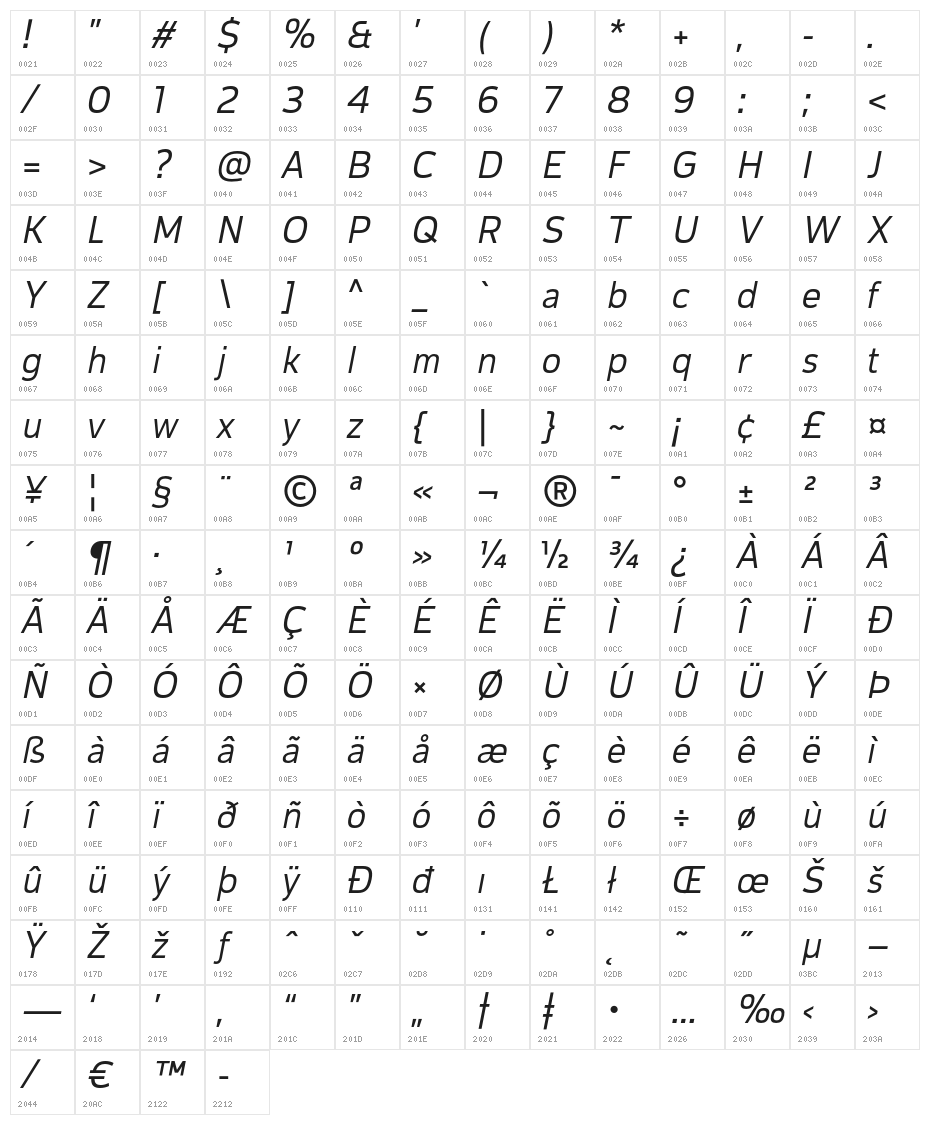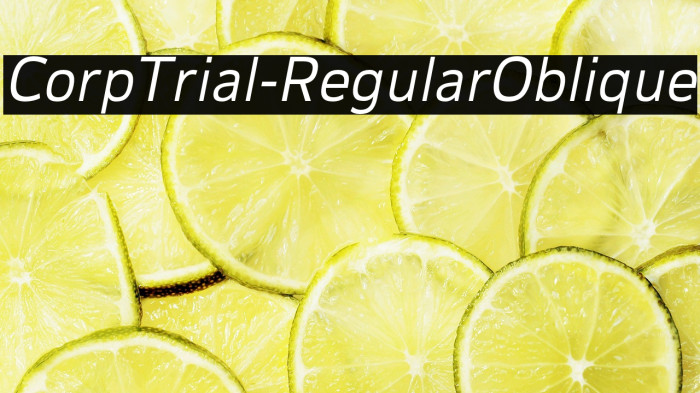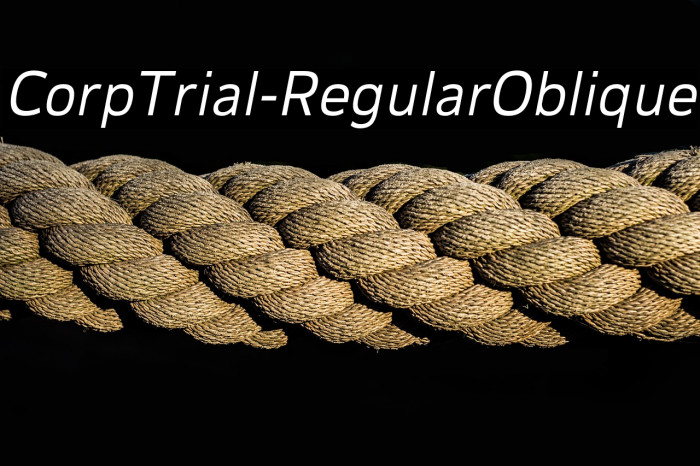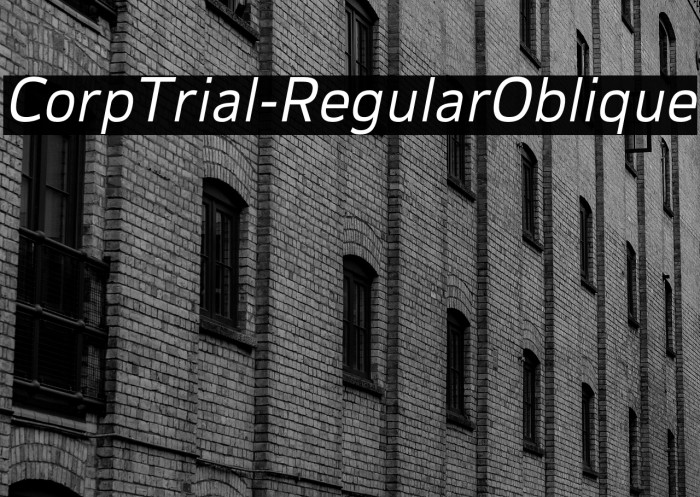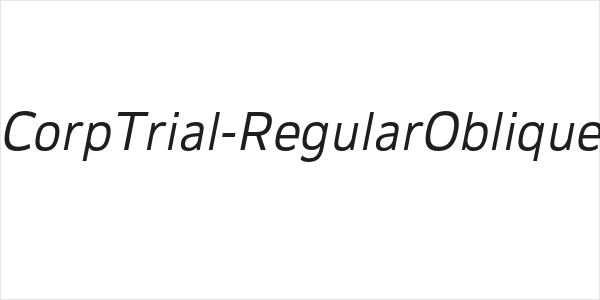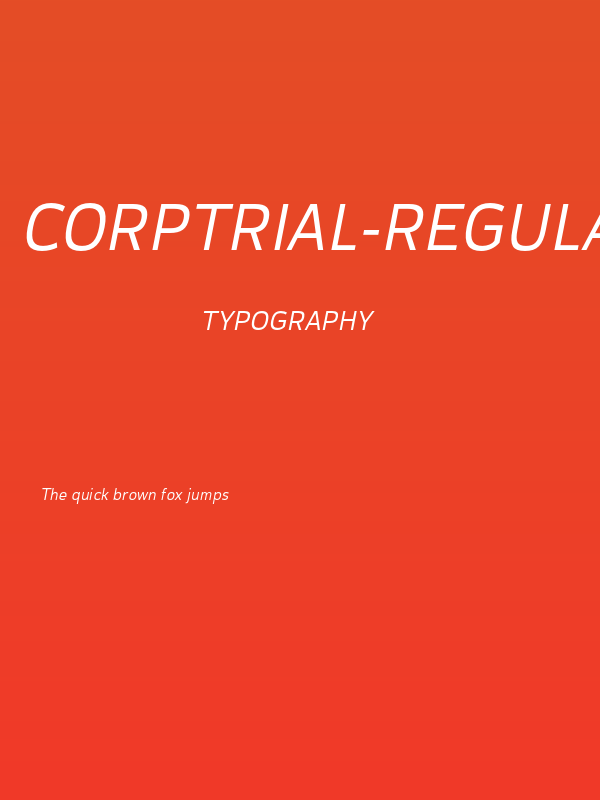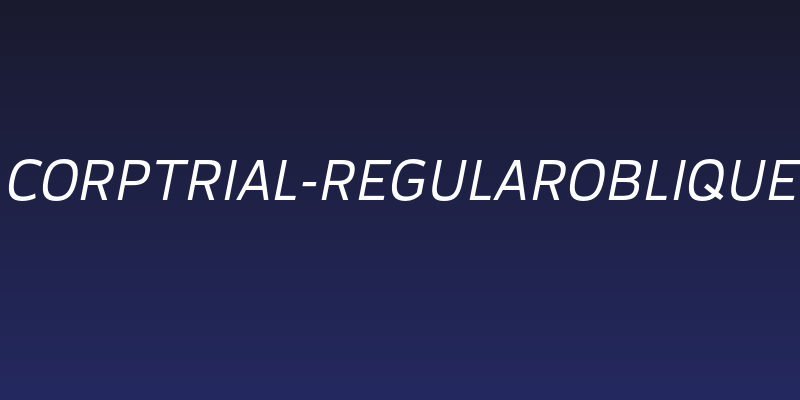
CorpTrial-RegularOblique Font
CorpTrial-RegularOblique Description
This font exhibits a sleek and modern design with a subtle oblique slant, giving it a dynamic and forward-moving appearance. The characters are clean and well-defined, with a consistent stroke width that maintains readability across various sizes. The uppercase and lowercase letters are proportionate, and the numerals are clear and distinct. The special characters are well-integrated, ensuring versatility in usage. Its overall style is professional and contemporary, making it suitable for a wide range of applications.